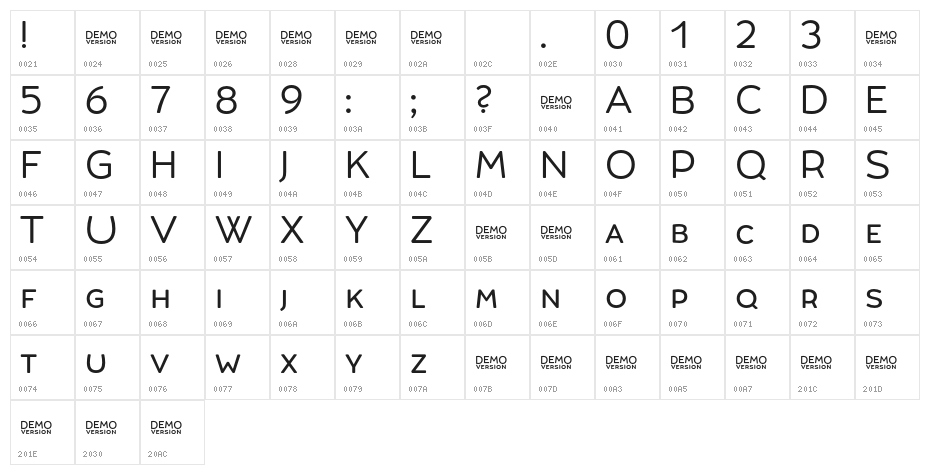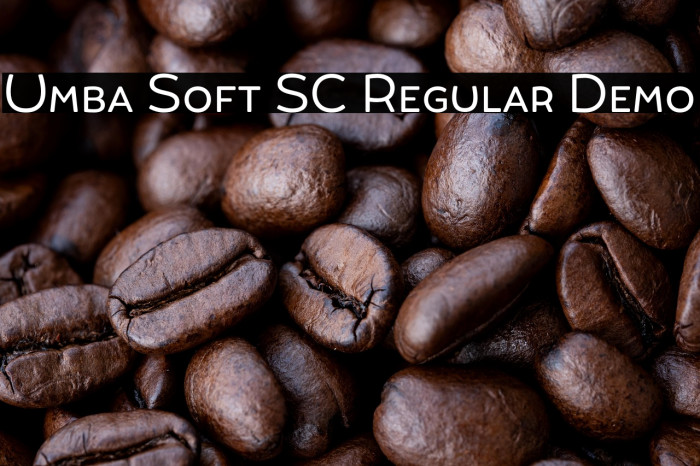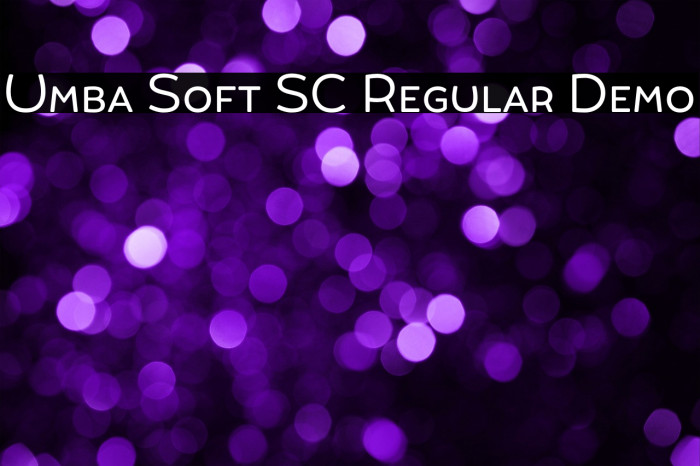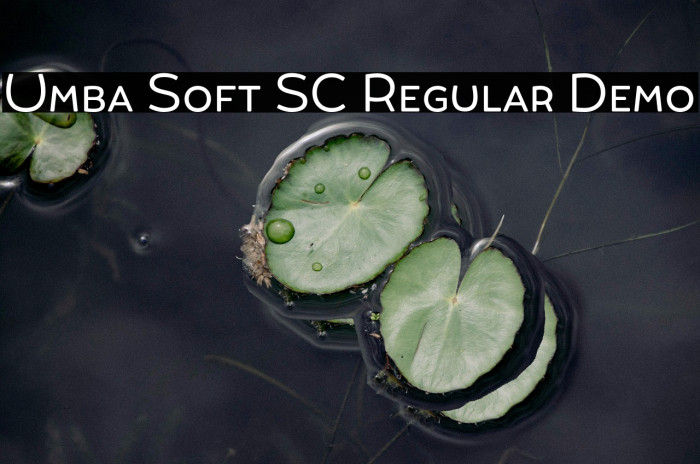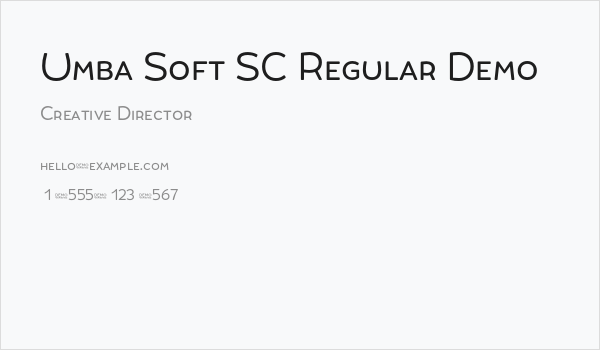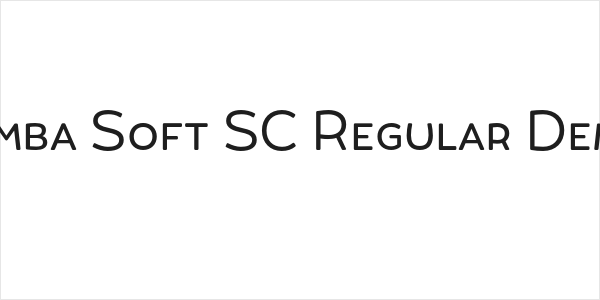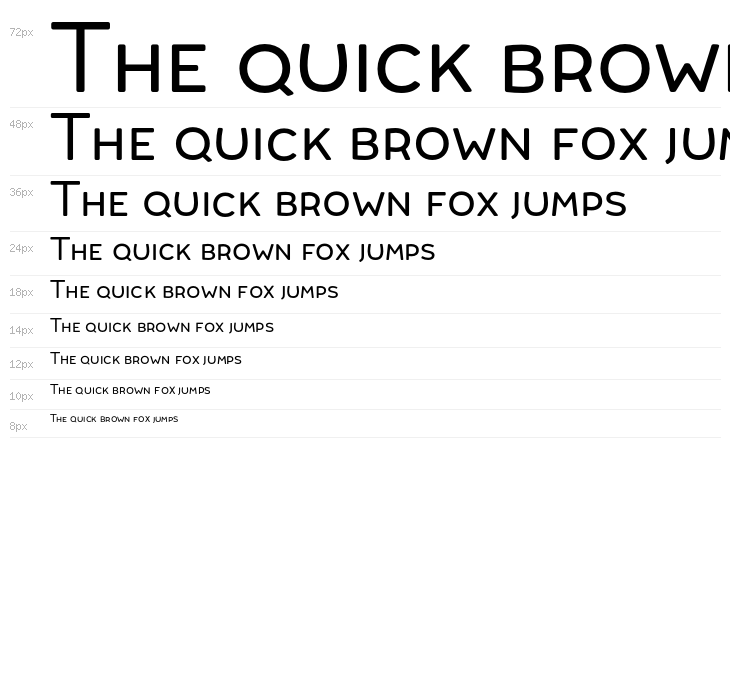
Umba Soft SC Regular Demo Font
Umba Soft SC Regular Demo Description
This font features a clean and modern sans-serif style with smooth curves and a uniform stroke width. The characters are well-proportioned, offering a harmonious and balanced appearance. Uppercase and lowercase letters maintain a consistent design, enhancing readability. The numerals are clear and distinct, making them suitable for various applications. The font's simplicity and elegance make it versatile for both digital and print media. Its geometric shapes and rounded edges give it a friendly and approachable feel, while maintaining a professional look.
| Proposed Projects | Ideal for branding, web design, advertising, and editorial projects. |